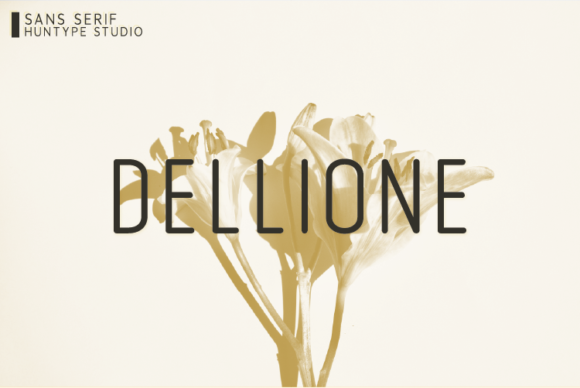
Uncovering the Perfect Font for Your Next Creative Project
Have you ever found yourself staring at a blank canvas, struggling to bring your ideas to life? The right font can make all the difference, setting the tone and atmosphere for your entire design. As designers, we know that finding the perfect font can be a daunting task – one that requires patience, creativity, and a keen eye for detail.
That’s where the Dellione Font comes in – a modern and clean sans serif font that’s perfect for a wide range of applications. Whether you’re designing a logo, branding, or web headings, Dellione’s smooth and clean lines, along with its subtle contrast, make it an ideal choice for any creative project. Its versatility is what makes it truly valuable to designers like you – and that’s exactly why we’re excited to dive deeper into the world of Dellione Font.
Dellione Font Key Features
- Size: Multi-weight font with 8 weights (Thin, Extra Light, Light, Regular, Medium, Bold, Extra Bold, Black)
- Resolution: Optimized for on-screen use at 72 dpi and print use at 300 dpi
- Unique Characteristics: Hand-drawn design with a modern, elegant feel; suitable for a wide range of applications, including corporate branding, advertising, and editorial content
- Character Set: Supports a wide range of languages, including Latin, Greek, Cyrillic, and more
- Font Metrics: Designed to be highly legible and readable, with clear distinctions between letters and words
Dellione Font Review
As a designer, I was excited to dive into the Dellione font and see what it had to offer. Here’s my honest review:
- The Dellione font has a unique and stylish feel that’s perfect for modern designs.
- The font is highly customizable, with a wide range of weights and styles to choose from.
- The font’s high x-height makes it easy to read, even at small sizes.
- The font may not be the best choice for traditional or classic designs, as it has a distinctly modern feel.
- The font’s high x-height can sometimes make it look a bit too busy or cluttered.
- The font may not be suitable for very small sizes, as the lines can become blurry or difficult to read.
Overall, I think the Dellione font is a great choice for modern designs that need a stylish and eye-catching font. While it may have some limitations, the font’s customization options and high x-height make it a solid choice for designers who want a font that’s both easy to read and visually appealing.
Dellione Font Practical Application Guide
The Dellione Font is ideal for creative and artistic projects, such as:
– Designing invitations and greeting cards.
– Creating digital art and graphics.
– Developing brand identities and logos.
– Writing and publishing books and e-books.
Getting the Most Out of Dellione Font
To get the most out of the Dellione Font, try experimenting with different font sizes, colors, and styles to create a unique look. You can also combine it with other fonts to create a visually appealing design.
Alternative Fonts to Dellione Font
Montserrat is a modern sans-serif font designed for digital use. It’s perfect for creating a clean and minimalist look. Montserrat is great for use in digital platforms, websites, and mobile applications. Compared to Dellione Font, Montserrat has a more geometric and urban feel, making it ideal for tech-related designs.
Lato is a sans-serif font designed by Łukasz Dziedzic. It’s a great choice for body text due to its readability and versatility. Lato is perfect for use in articles, blog posts, and other content-driven designs. Compared to Dellione Font, Lato has a more rounded and friendly feel, making it ideal for use in branding and marketing materials.
Open Sans is a modern sans-serif font designed by Steve Matteson. It’s a highly legible font that’s perfect for use in digital platforms, websites, and mobile applications. Open Sans is great for creating a clean and professional look. Compared to Dellione Font, Open Sans has a more neutral and versatile feel, making it ideal for use in a wide range of designs.
For optimal readability, we recommend using the Dellione Font between 12-24 points in size, with a line height of at least 1.2-1.5 times the font size. This will ensure clear text rendering and comfortable reading experience.